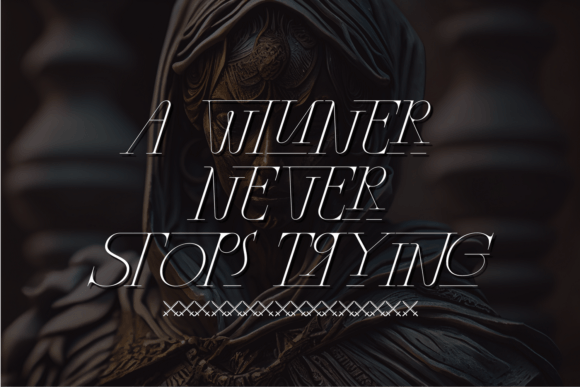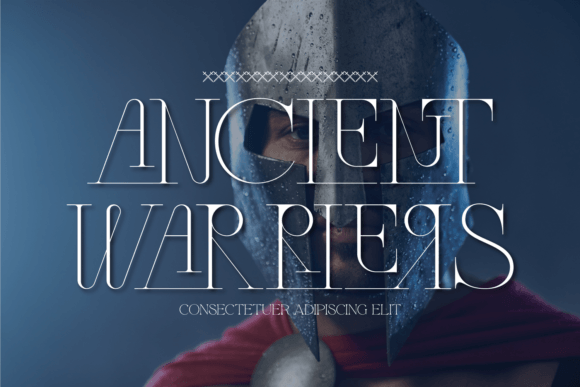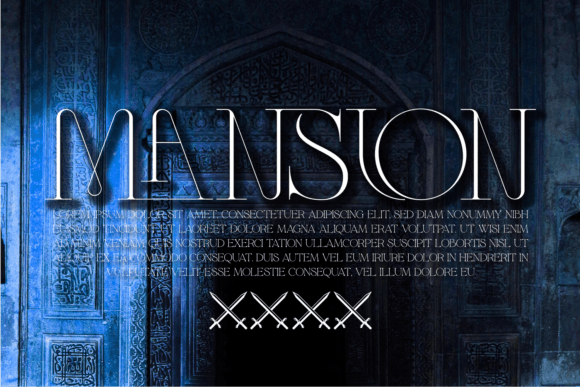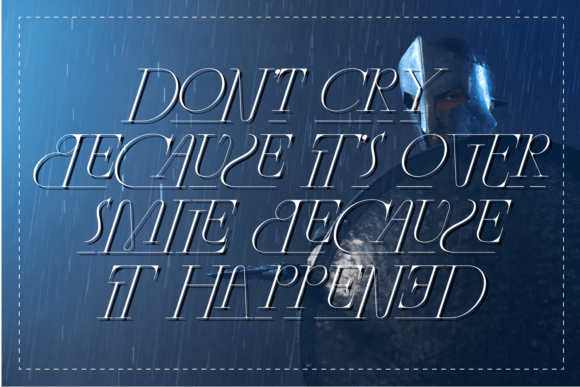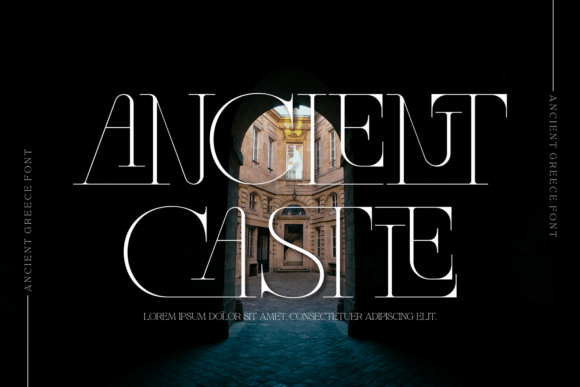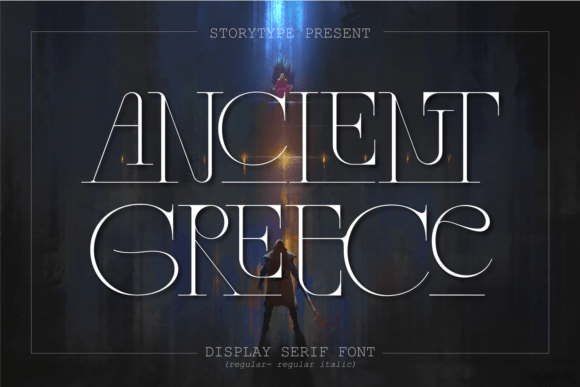
The Elegance of Ancient Greece: A Timeless Font for Designers
I’ll never forget the design project that led me to discover the Ancient Greece font. I was working on a luxury branding campaign for a high-end jewelry client, and I was struggling to find the perfect font to convey elegance and sophistication. The client wanted a font that would evoke the timeless beauty of ancient Greek architecture, but I was coming up short. That was when I stumbled upon Ancient Greece, a stylish serif font that exuded luxury and refinement.
So, what do I love about Ancient Greece? 🤔 Here are a few things that make this font stand out:
• ✨ Clean, precise lines that evoke the classic look of ancient Greek architecture
• ✅ Elegant, slender letterforms that add an air of refinement
• 🎨 Versatile and perfect for high-end branding, editorial projects, logos, and invitations
While Ancient Greece is an amazing font, there are a few small quirks to be aware of:
• ⚠️ Some users may find the font a bit too slender for certain design applications
• 🤔 Limited availability of certain characters or symbols, but this can be addressed with the PUA encoding
The Designer Inspiration Behind Ancient Greece
The Ancient Greece font was inspired by the timeless beauty of ancient Greek architecture. The designer wanted to create a font that would evoke the elegance and sophistication of ancient Greece, while also being versatile and easy to use. The result is a font that’s perfect for high-end branding, editorial projects, and luxury design applications.
What is Ancient Greece font? Ancient Greece is a stylish serif font inspired by the timeless beauty of ancient Greek architecture.